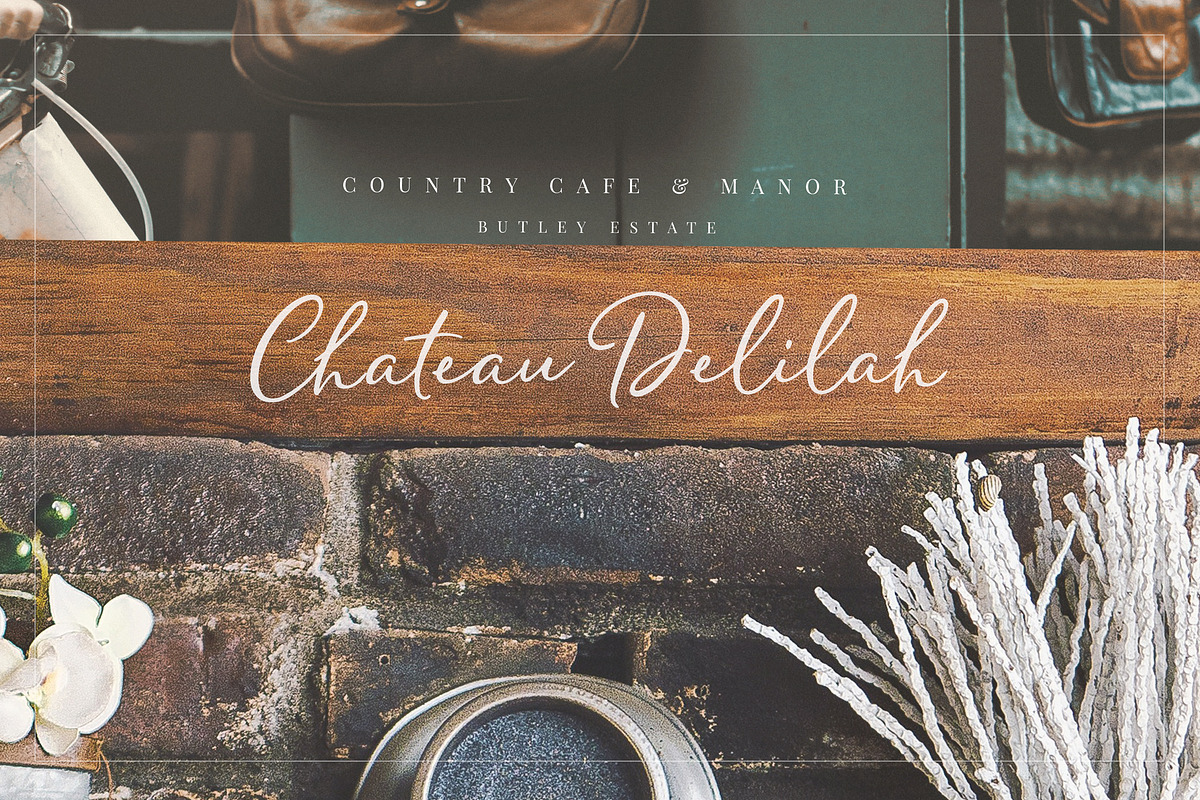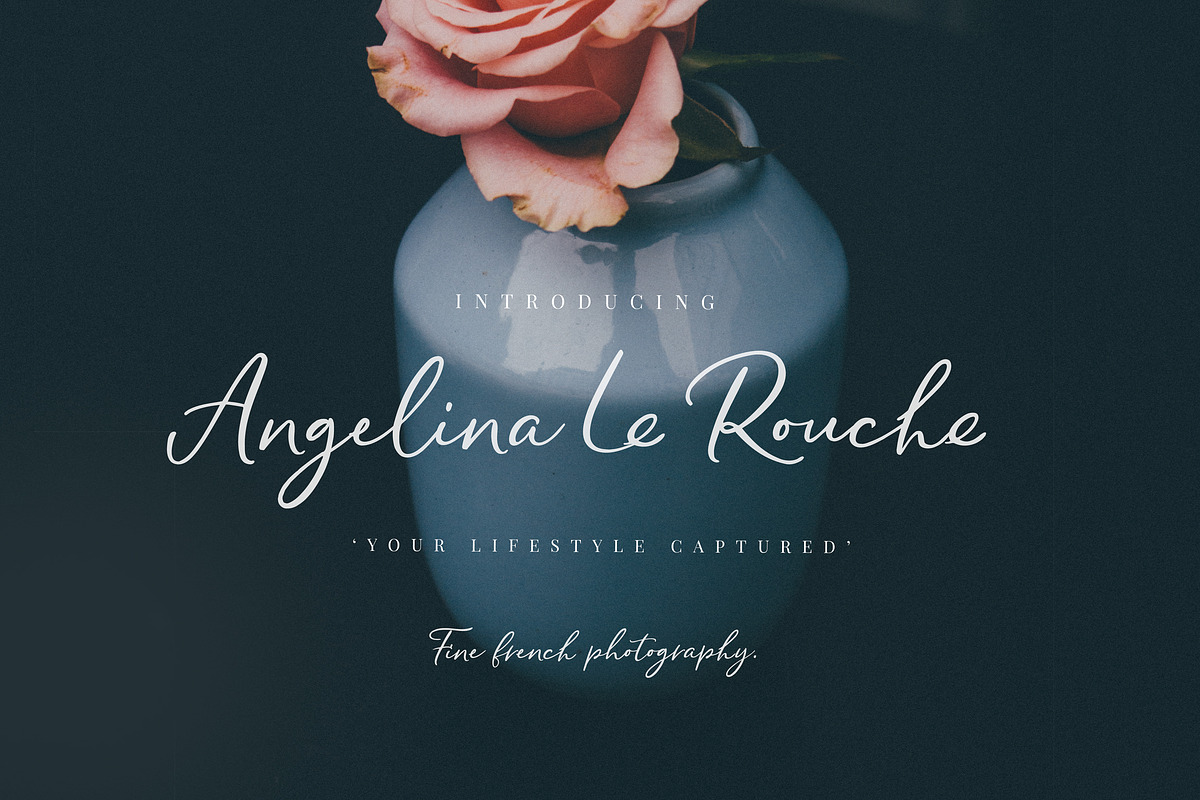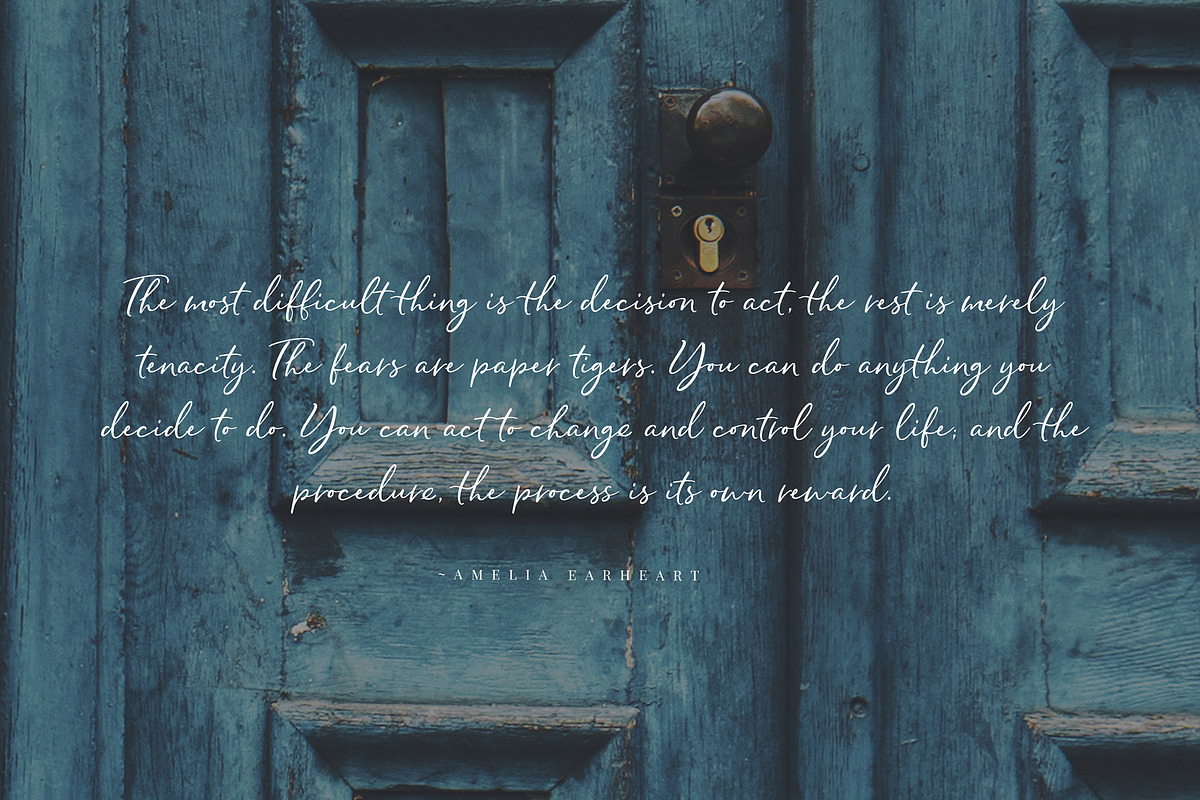
Pringle and Tweed Font
Pringle and Tweed is a casual handwritten script font with smooth curves and an elegant ink flow. Designed to maintain a natural, hand-inked look, this font features subtle imperfections that add authenticity to any design.
Perfect for branding, lettering projects, invitations, social media graphics, and more, Pringle and Tweed combines elegance and uniqueness to make your typography stand out.
Features of Pringle and Tweed Font
Elegant Handwritten Style
• Crafted with natural ink imperfections for an authentic, hand-drawn feel.
• Soft curves and fluid strokes create a stylish yet casual appearance.
OpenType Features: Ligatures & Stylistic Alternates
• Includes a comprehensive set of double-letter ligatures for smooth letter connections.
• Comes with stylistic alternates for lowercase characters, allowing for customization and variation in your text.
Perfect for Multiple Design Uses
• Logos & Branding: Ideal for signature-style logos, luxury brands, and creative businesses.
• Wedding Invitations & Cards: Adds a touch of sophistication to printed materials.
• Social Media & Digital Designs: Enhances posts, stories, and advertisements with a chic, handwritten feel.